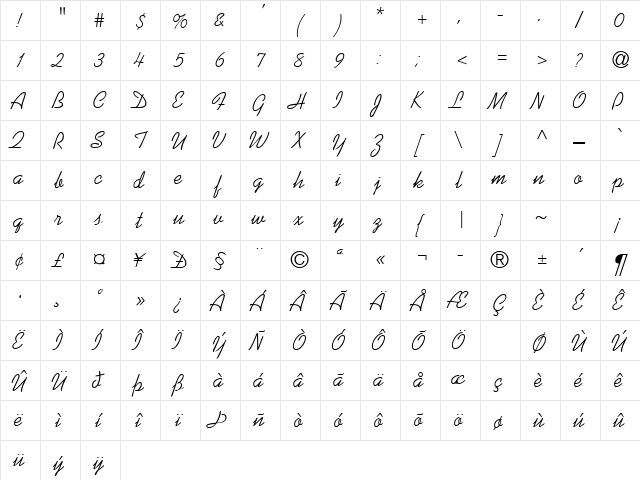
KOALAN Regular
Design Context for KOALAN Typeface
KOALAN is a composed and adaptable typeface that performs quietly and consistently across a wide range of design contexts.